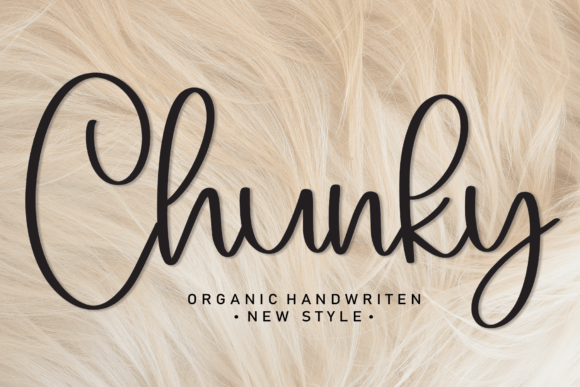
Introducing Chunky: The Modern and Neat Handwritten Font
Are you a designer or crafter looking for a font that can elevate your creations to the next level? Look no further than Chunky, a modern and neat handwritten font that’s perfect for a wide range of projects. With its unique blend of style and legibility, Chunky is an incredible asset to any font library, and we’re excited to dive into its features and benefits.
What is Chunky Font?
Chunky is a carefully crafted handwritten font that’s designed to make a statement. Its chunky strokes and neat letterforms give it a distinctive look that’s both modern and approachable. Whether you’re working on a branding project, a crafting tutorial, or a social media graphic, Chunky is the perfect choice for adding a personal touch.
Key Features of Chunky Font
- Modern and Neat Design: Chunky’s handwritten design is both modern and neat, making it perfect for a wide range of projects.
- Legible and Readable: Despite its chunky strokes, Chunky is incredibly legible and readable, even at small sizes.
- Versatile: Chunky is suitable for a wide range of topics and projects, from crafting and DIY tutorials to branding and advertising.
- Easy to Use: Chunky is a straightforward font to use, and its clear letterforms make it easy to read and understand.
Benefits of Using Chunky Font
So why should you choose Chunky for your next project? Here are just a few benefits of using this amazing font:
- Adds a Personal Touch: Chunky’s handwritten design adds a personal touch to any project, making it perfect for crafts and DIY tutorials.
- Elevates Branding: Chunky’s modern and neat design makes it an excellent choice for branding projects, helping to elevate your brand’s visual identity.
- Great for Headings and Titles: Chunky’s chunky strokes make it perfect for headings and titles, adding a bold and eye-catching element to your designs.
- Works Well with Images: Chunky’s clear letterforms work well with images, making it an excellent choice for graphic designers and crafters.
How to Use Chunky Font
Using Chunky font is easy! Here are a few tips to get you started:
- Pair with Other Fonts: Chunky pairs well with other fonts, so feel free to experiment with different combinations to find the perfect look.
- Use for Headings and Titles: Chunky’s chunky strokes make it perfect for headings and titles, so use it to add a bold and eye-catching element to your designs.
- Add to Your Font Library: With its versatility and legibility, Chunky is an excellent addition to any font library.
In conclusion, Chunky is an amazing font that’s perfect for designers and crafters looking to elevate their creations. With its modern and neat design, legibility, and versatility, Chunky is an incredible asset to any font library. Whether you’re working on a branding project, a crafting tutorial, or a social media graphic, Chunky is the perfect choice for adding a personal touch. So why not give Chunky a try and see the difference it can make in your designs?
- What is Chunky font? Chunky is a modern and neat handwritten font designed for a wide range of projects.
- Is Chunky font legible? Yes, Chunky font is incredibly legible and readable, even at small sizes.